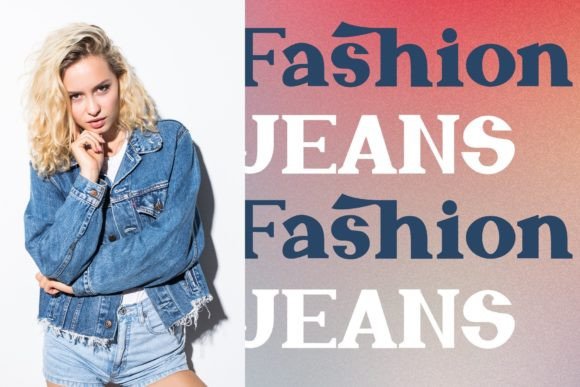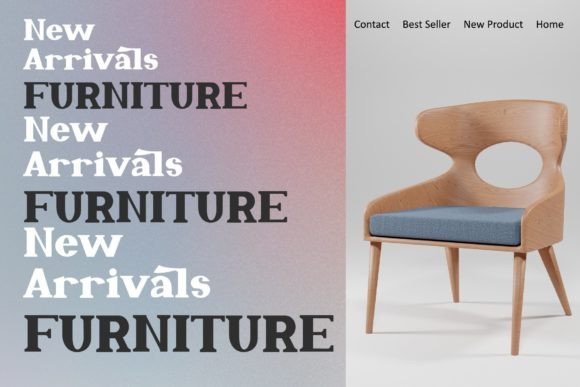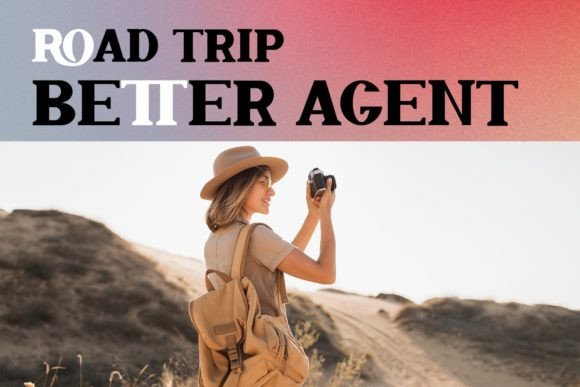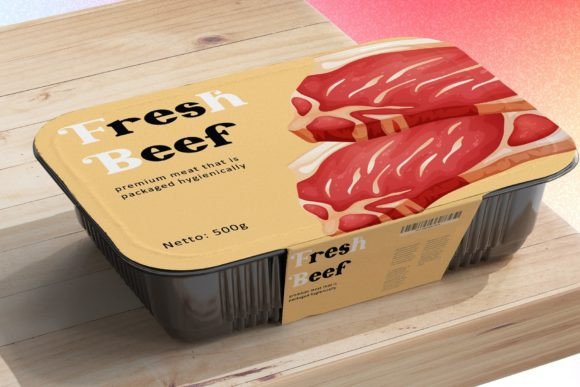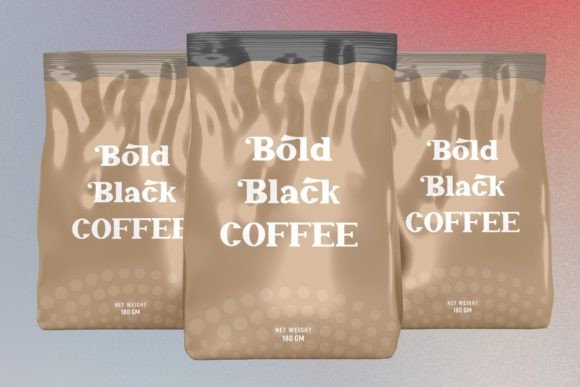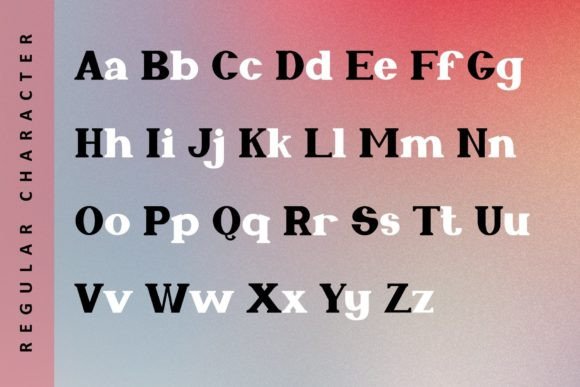
Baochi Font: Elevate Your Designs with Elegance and Style
In the world of typography, a font can make or break a design. A well-crafted font can elevate your creative project from ordinary to extraordinary. If you’re a designer, crafter, or DIY enthusiast looking for a stylish and elegant bold serif font, look no further than Baochi. In this article, we’ll dive into the features and benefits of Baochi Font, and explore how it can enhance your designs.
What is Baochi Font?
Baochi is a stunning bold serif font that exudes elegance and sophistication. Its unique and cool style makes it suitable for a wide variety of designs, from headlines and logos to magazines, packaging, covers, posters, and more. With Baochi, you can add a touch of refinement and luxury to your creative projects.
Key Features of Baochi Font
- Stylish and Elegant Design: Baochi boasts a bold serif design that’s both stylish and elegant. Its refined lines and curves make it perfect for designs that require a touch of sophistication.
- PUA Encoded: Baochi is PUA (Private Use Area) encoded, which means you can access all the glyphs and swashes with ease. This feature allows you to unlock the full potential of the font and experiment with different design elements.
- Versatile: Baochi is an incredibly versatile font that can be used for a wide range of designs, including headlines, logos, magazines, packaging, covers, posters, and more.
Benefits of Using Baochi Font
So, why choose Baochi Font for your next design project? Here are just a few benefits of using this stunning font:
- Instant Recognition: Baochi’s bold serif design ensures that your text will stand out and grab attention. Whether you’re designing a logo, headline, or poster, Baochi helps you make a lasting impression.
- Elegance and Sophistication: Baochi adds a touch of elegance and sophistication to any design. Its refined lines and curves evoke a sense of luxury and refinement, making it perfect for high-end designs.
- Easy to Use: With PUA encoding, accessing glyphs and swashes is a breeze. This means you can focus on creating stunning designs rather than struggling with complicated font mechanics.
Design Ideas with Baochi Font
Now that we’ve explored the features and benefits of Baochi Font, let’s dive into some design ideas to get you started:
- Logos and Branding: Use Baochi to create a bold and elegant logo that sets your brand apart.
- Magazine and Editorial Design: Add a touch of sophistication to your magazine or editorial design with Baochi’s refined lines and curves.
- Packaging and Product Design: Elevate your packaging and product design with Baochi’s luxurious and elegant feel.
- Posters and Flyers: Create eye-catching posters and flyers with Baochi’s bold serif design.
In conclusion, Baochi Font is a stylish and elegant bold serif font that’s perfect for designers, crafters, and DIY enthusiasts. With its unique and cool style, PUA encoding, and versatility, Baochi is an excellent addition to any design project. Whether you’re creating logos, magazines, packaging, or posters, Baochi helps you elevate your designs with elegance and sophistication. So why wait? Download Baochi Font today and take your designs to the next level!